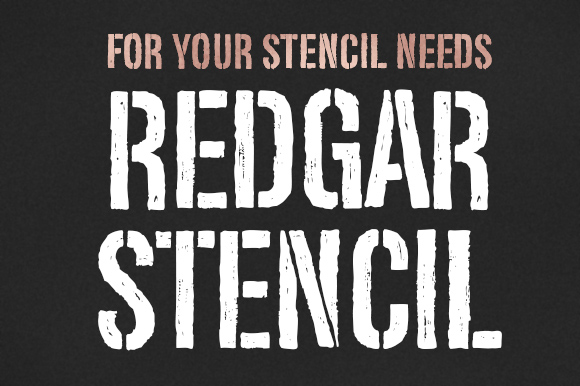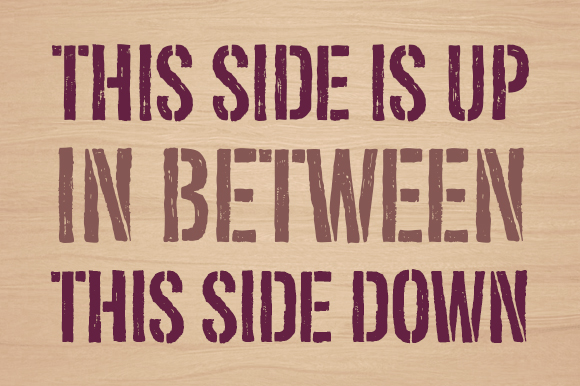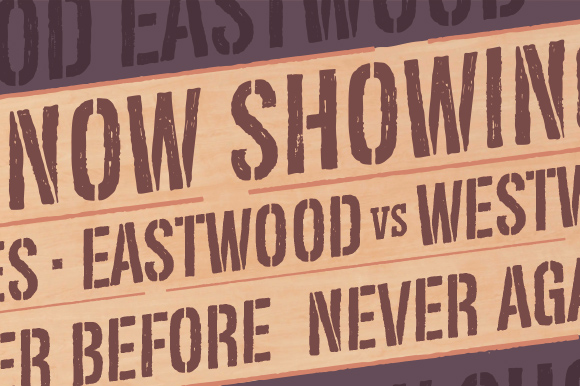
Redgar Stencil Font: Rustic Typography for DIY & Cricut Projects!
About the Redgar Stencil Font
Add a touch of class to your work with the Redgar Stencil Font, a truly exceptional typeface. Redgar Stencil is a weathered stencil font.
Its rugged texture makes Redgar Stencil ideal for headlines, posters, and branding projects requiring a vintage or industrial feel. It works exceptionally well for short, impactful statements and logos where its strong character can shine. Avoid using it for body text or long paragraphs; its stencil nature and heavy weight make it less legible at smaller sizes.
Redgar Stencil projects a bold and confident personality. For a balanced design, pair it with a clean sans-serif like Open Sans for body text or a more delicate script font like Great Vibes for supplementary elements. A geometric sans-serif, such as Montserrat, could also provide a strong, modern contrast.
Consider Redgar Stencil for brands aiming for a vintage, street-style aesthetic, or projects related to mechanics, construction, or outdoor adventure. Its weathered texture adds authenticity, while the stencil style delivers a strong, graphic impact.
Redgar Stencil Font Usage Examples
Redgar Stencil Font Example